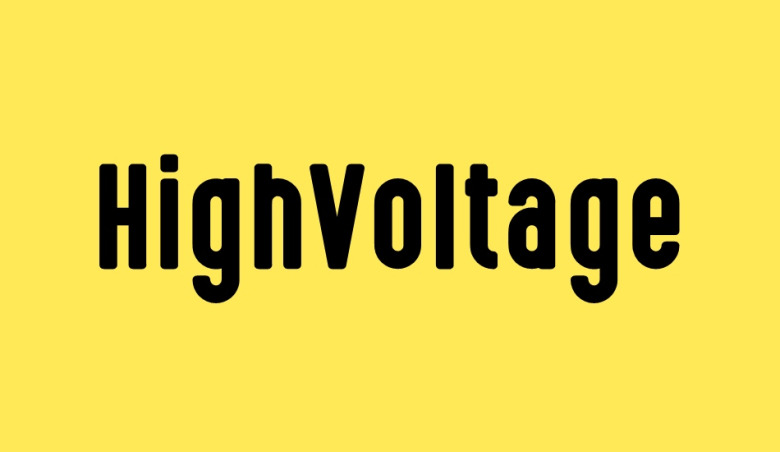
High Voltage Font
High Voltage is a high quality Sans Serif font that is designed by Levi Szekeres and is available for free download and personal use. The free version provides all uppercase and lowercase letters and a few special characters too.
High Voltage Sans Serif Font